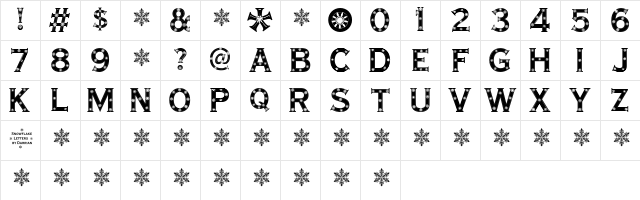
Complete Snowflake Letters Extra-expanded glyph index. Displaying only characters natively supported by Snowflake Letters Extra-expanded font.
Snowflake Letters is a composed and adaptable typeface that performs quietly and consistently across a wide range of design contexts.